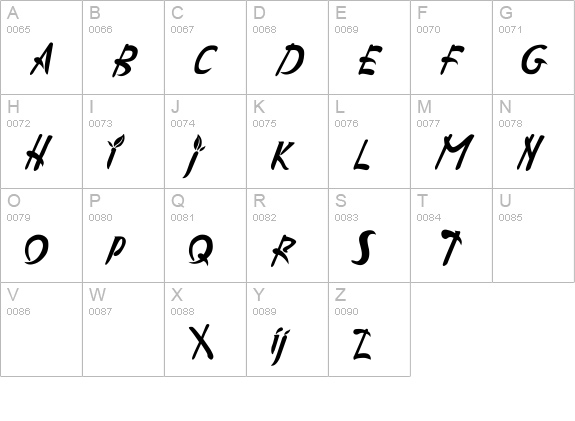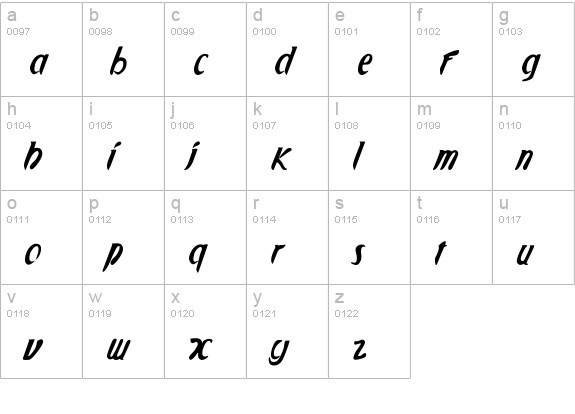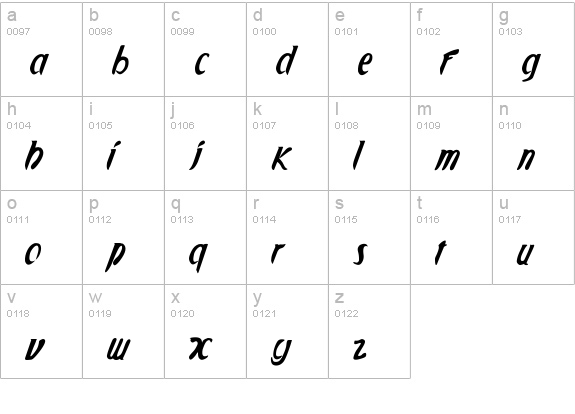
AppleJuiced Font Details
AppleJuiced font is a modern and stylish typeface that will bring a fresh and vibrant touch to your design projects. With its sleek and clean lines, this font is perfect for creating eye-catching headlines, logos, and branding materials. What sets AppleJuiced font apart is that it is completely free to use for both personal and commercial projects. You can easily download this font at FontsMarket.com and start using it in your designs right away. Whether you're working on a digital campaign, print materials, or web design, AppleJuiced font will add a touch of sophistication and elegance to your work. Don't miss out on this fantastic opportunity to enhance your projects with the AppleJuiced font - download it for free today at FontsMarket.com!